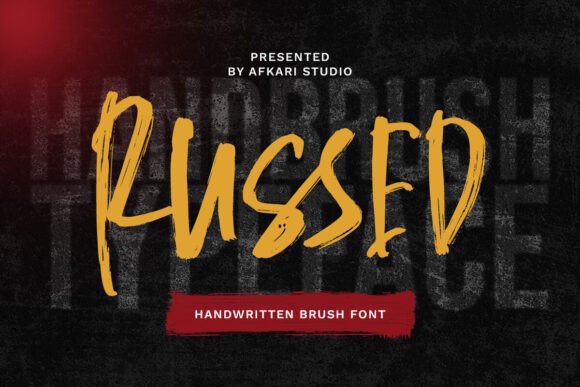
Russed Font: Unleash the Power of Raw Intensity and Personal Charisma
In the world of typography, fonts play a crucial role in conveying the tone and personality of a brand or design. When it comes to making a statement, a bold and eye-catching font is essential. This is where Russed Font comes in – a bold, handwritten brush font that radiates raw intensity and personal charisma. In this article, we’ll explore the unique features of Russed Font, its design inspiration, and how it can elevate your designs to the next level.
What is Russed Font?
Russed Font is a bold, handwritten brush font that captures the spirit of spontaneity and genuine love for brushwork. Its authentic handmade feel makes it an ideal pairing for designs that need to balance creativity with a lively gusto. With its robust character, Russed Font lifts your projects, making an impression with its distinct allure.
The Design Inspiration Behind Russed Font
Russed Font is inspired by the art of brushwork, with a focus on capturing the organic flow and textured edges of hand-painted words. The font’s design echoes the genuine love and passion for brushwork, giving it a unique and authentic feel. The result is a font that conveys the sensation of words being artfully brushed onto a canvas.
Key Features of Russed Font
- Bold and Handwritten: Russed Font is a bold, handwritten brush font that makes a statement.
- Authentic Handmade Feel: The font’s design captures the organic flow and textured edges of hand-painted words.
- Robust Character: Russed Font has a robust character that lifts your projects and makes an impression.
- Dynamic and Artistic Edge: The font infuses your words with a dynamic, artistic edge, perfect for designs that need to stand out.
Use Cases for Russed Font
Russed Font is versatile and can be used in a variety of design projects, including:
- Logos: Create a bold and eye-catching logo that makes a statement.
- Posters: Design attention-grabbing posters that showcase your message.
- Packaging: Add a touch of personality to your packaging with Russed Font.
- Social Media Content: Elevate your social media content with a dynamic and artistic edge.
- Merchandise: Create unique and eye-catching merchandise that stands out.
The Benefits of Using Russed Font
Using Russed Font in your designs offers several benefits, including:
- Unique and Authentic Feel: Russed Font has a unique and authentic feel that sets it apart from other fonts.
- Attention-Grabbing: The font’s bold and dynamic design grabs attention and makes a statement.
- Versatile: Russed Font can be used in a variety of design projects, from logos to social media content.
- Easy to Read: Despite its bold design, Russed Font is easy to read and understand.
Tips for Using Russed Font
To get the most out of Russed Font, here are some tips to keep in mind:
- Use it Sparingly: Use Russed Font sparingly to make a maximum impact.
- Pair it with Other Fonts: Pair Russed Font with other fonts to create a unique and interesting design.
- Experiment with Colors: Experiment with different colors to find the perfect match for your design.
- Keep it Simple: Keep your design simple and clean to let Russed Font shine.
Russed Font is a bold and eye-catching font that radiates raw intensity and personal charisma. With its authentic handmade feel and robust character, it’s the perfect pairing for designs that need to balance creativity with a lively gusto. Whether you’re creating logos, posters, packaging, social media content, or merchandise, Russed Font infuses your words with a dynamic, artistic edge. Experience the captivating charm of Russed Font, where natural and raw energy beautifully collide with creativity.